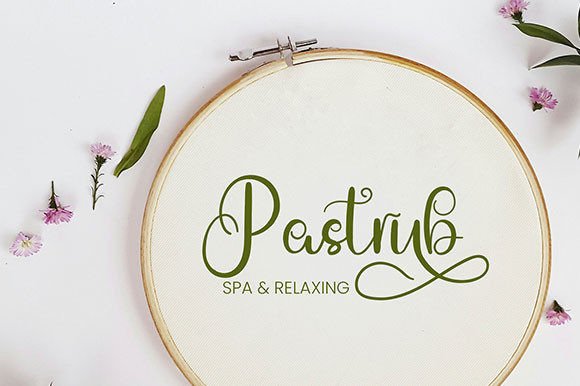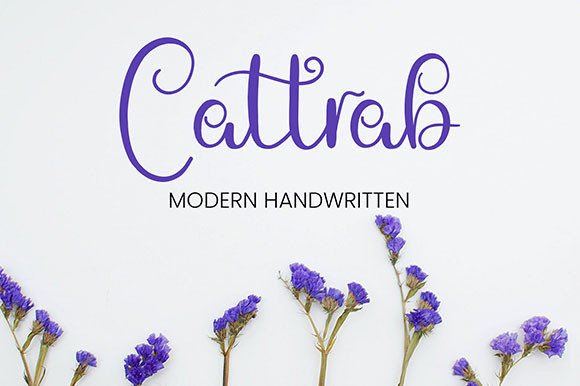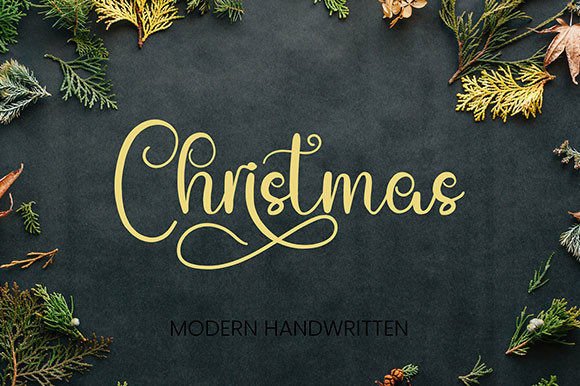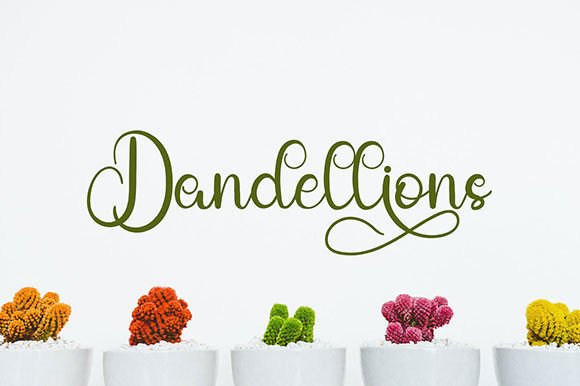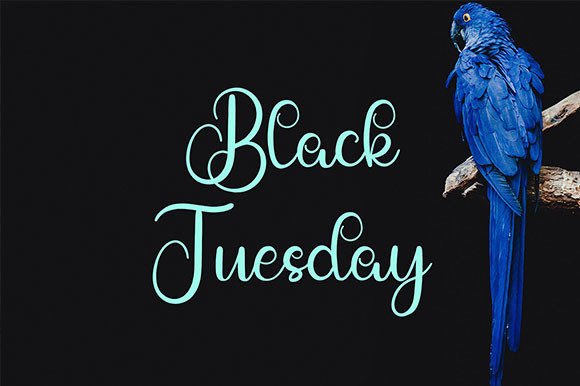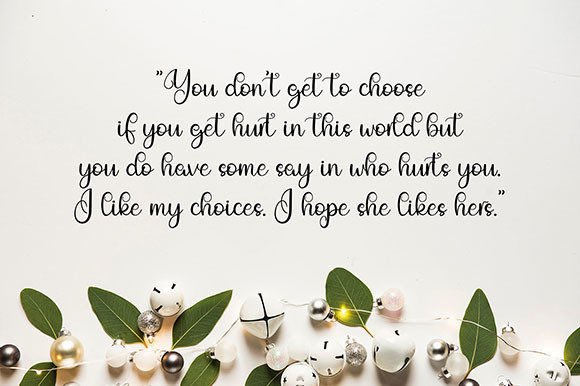
Introducing Badamban: The Swirly and Unique Handwritten Font for Creative Projects
Are you a designer or crafter looking for a font that can add a touch of personality to your projects? Look no further than Badamban, a swirly and unique handwritten font that’s perfect for a variety of creative endeavors. In this article, we’ll take a closer look at the Badamban font, its features, and how you can use it to elevate your designs.
What is Badamban Font?
Badamban is a carefully crafted handwritten font that’s designed to add a touch of whimsy and elegance to your projects. Its swirly and unique letterforms make it stand out from more traditional fonts, giving your designs a distinctive look that’s sure to grab attention.
Features of Badamban Font
So, what makes Badamban font so special? Here are just a few of its key features:
- Swirly and unique letterforms: Badamban’s letterforms are carefully crafted to have a swirly, whimsical feel that’s perfect for adding a touch of personality to your designs.
- Handwritten feel: Unlike more traditional fonts, Badamban has a distinctly handwritten feel that’s perfect for creating designs that feel personal and authentic.
- Versatile: Badamban is a versatile font that can be used for a wide range of projects, from quotes and logos to blog headers and posters.
What Projects is Badamban Font Suitable For?
So, what types of projects is Badamban font suitable for? The answer is: a wide range! Here are just a few ideas to get you started:
- Quotes: Add a touch of elegance and whimsy to your quotes with Badamban font.
- Logos: Create a distinctive logo for your business or brand with Badamban font.
- Blog headers: Add a touch of personality to your blog headers with Badamban font.
- Posters: Create eye-catching posters with Badamban font that’s sure to grab attention.
- Ribbons: Add a touch of elegance to your ribbons with Badamban font.
- Fashion and clothing: Use Badamban font to create distinctive labels and branding for your fashion or clothing business.
- Letters and invitations: Add a touch of whimsy and elegance to your letters and invitations with Badamban font.
- Stationery: Create beautiful stationery with Badamban font that’s perfect for personal or business use.
Why Choose Badamban Font?
So, why choose Badamban font for your projects? Here are just a few reasons:
- Unique and distinctive: Badamban font is a unique and distinctive font that’s sure to make your designs stand out.
- Elegant and whimsical: Badamban font has an elegant and whimsical feel that’s perfect for adding a touch of personality to your designs.
- Versatile: Badamban font is a versatile font that can be used for a wide range of projects.
In conclusion, Badamban font is a unique and versatile font that’s perfect for designers and crafters looking to add a touch of personality to their projects. With its swirly and whimsical letterforms, elegant feel, and wide range of uses, Badamban font is a great choice for anyone looking to create distinctive and eye-catching designs. So why not give it a try and see the difference it can make?